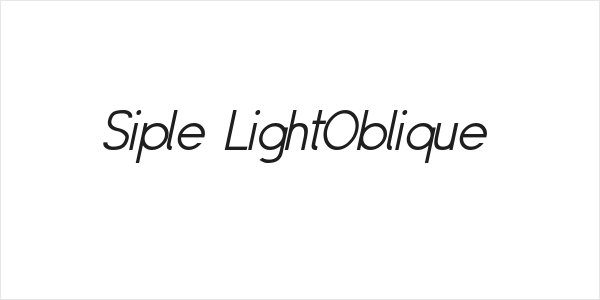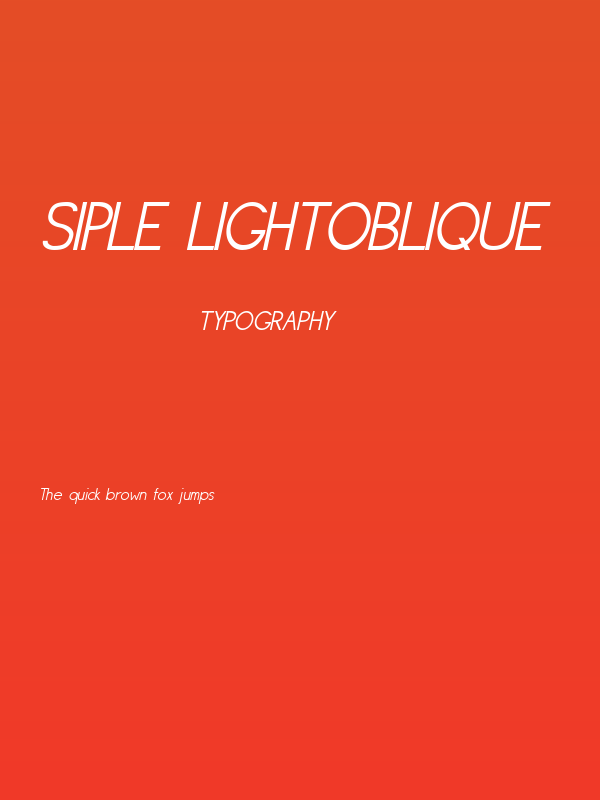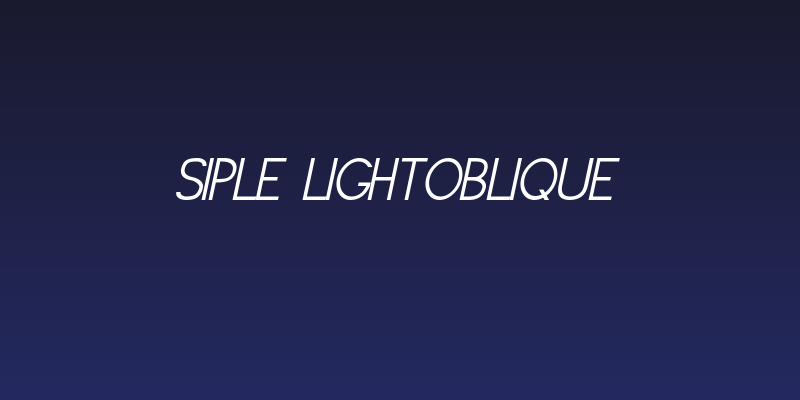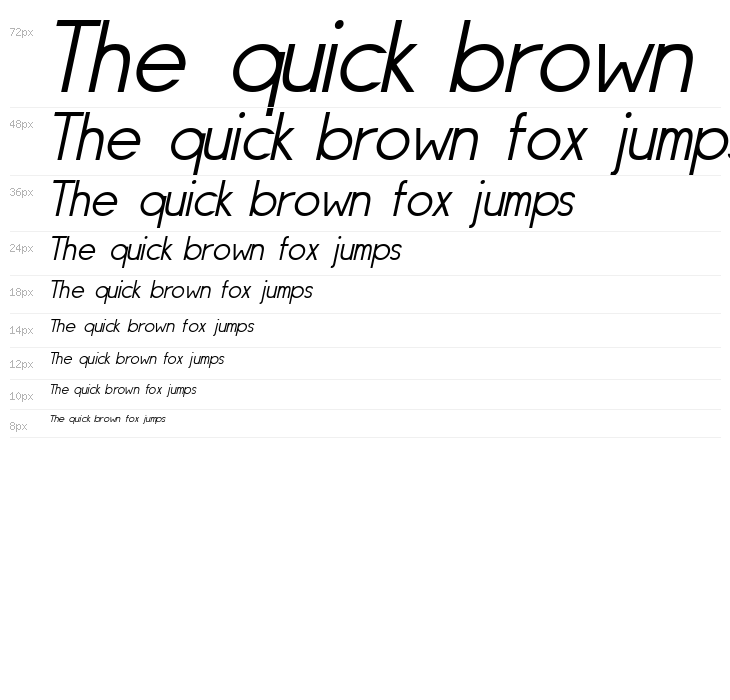
Siple LightOblique Font
Siple LightOblique Description
This font features a sleek, modern design with a light oblique style. The characters are slightly slanted, giving a sense of motion and elegance. The strokes are thin and consistent, providing a clean and sophisticated look. The uppercase letters are tall and narrow, while the lowercase letters maintain a balanced proportion. Numbers and special characters are designed with the same attention to detail, ensuring readability and style. This font is ideal for projects that require a contemporary and stylish appearance.
| Proposed Projects | Ideal for branding, fashion magazines, modern websites, and elegant invitations. |